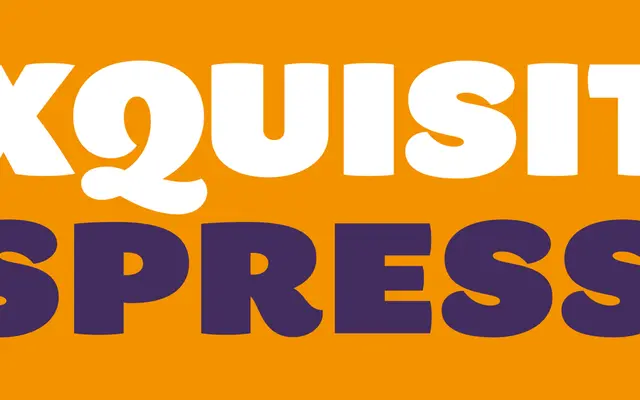
Buendia
Bold Monday · César Puertas · 2009
A graduation project by César Puertas that builds six formally distinct styles — grotesque, rounded, slab-serif and transitional — from a single shared skeleton.
Rather than progressing through weights alone, Buendia varies finishing across its six members: a thin and medium sans, a roman and italic serif, a bold slab and an extra beefy rounded sans. All share closed apertures, swashy tails and slightly curved diagonals, which lend the family a consistent warmth across otherwise contrasting styles. Suited to packaging, advertising and editorial work where a designer needs tonal variety without switching families.
Buendia deliberately spans grotesque, rounded, slab-serif and transitional styles within a single family, making it impossible to place in a single category; display is the best fit given its expressive range and primary use cases in packaging and advertising.